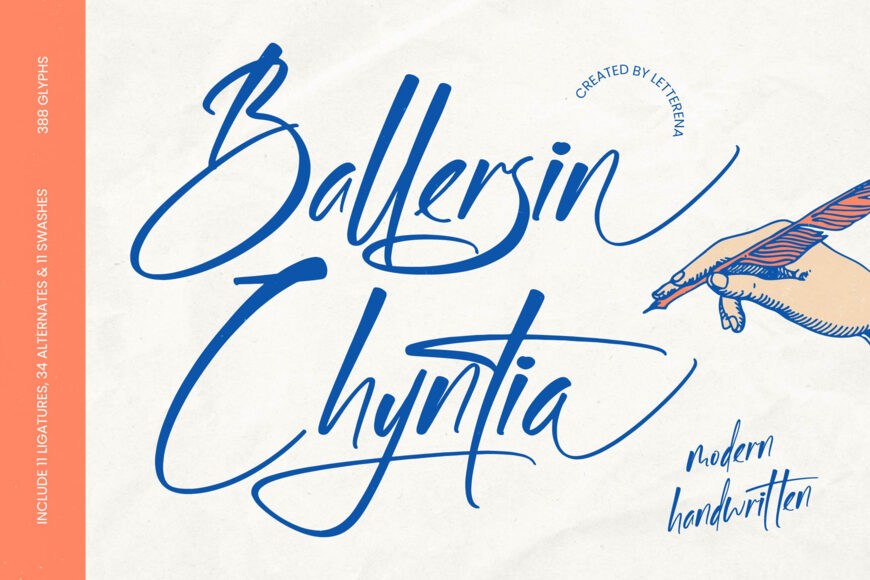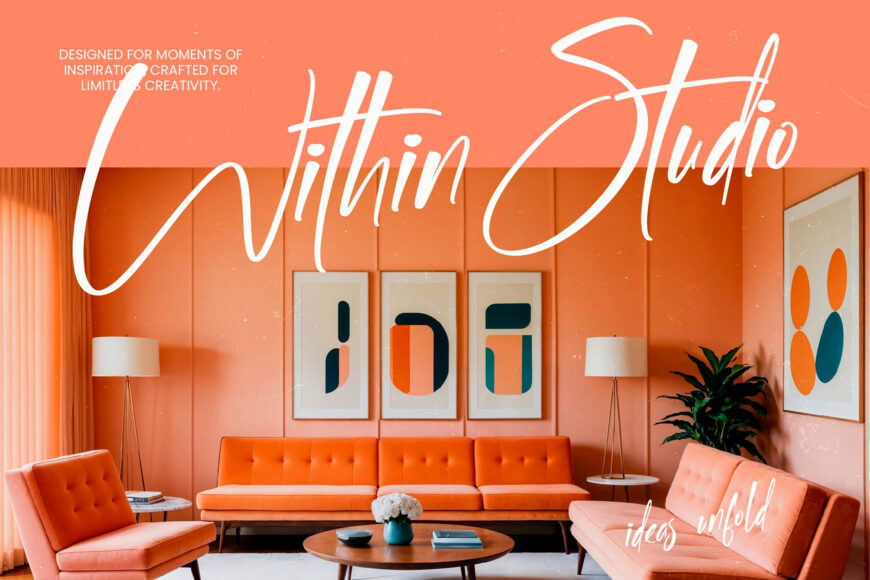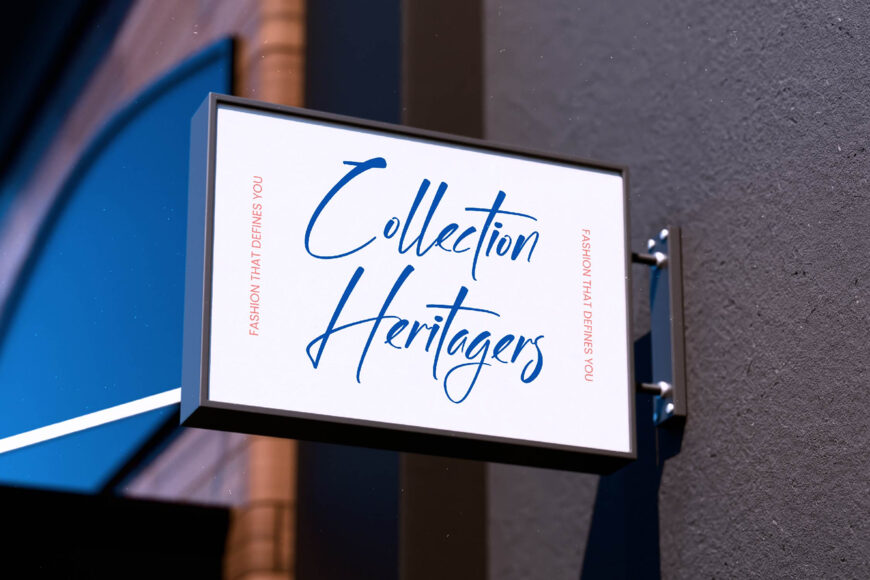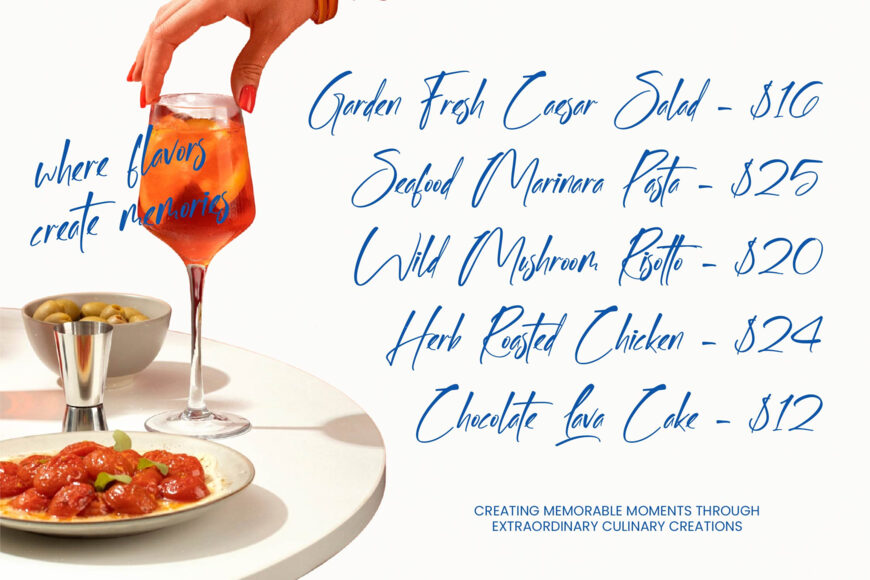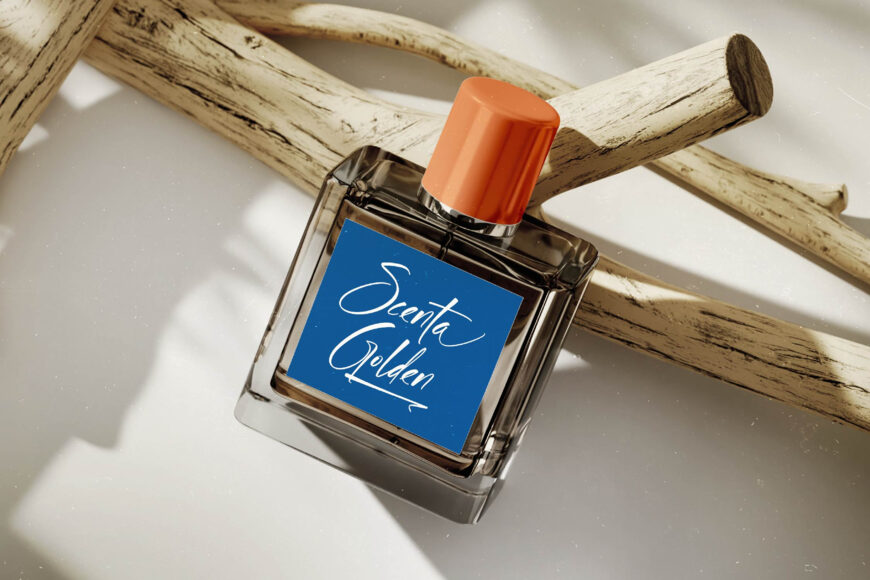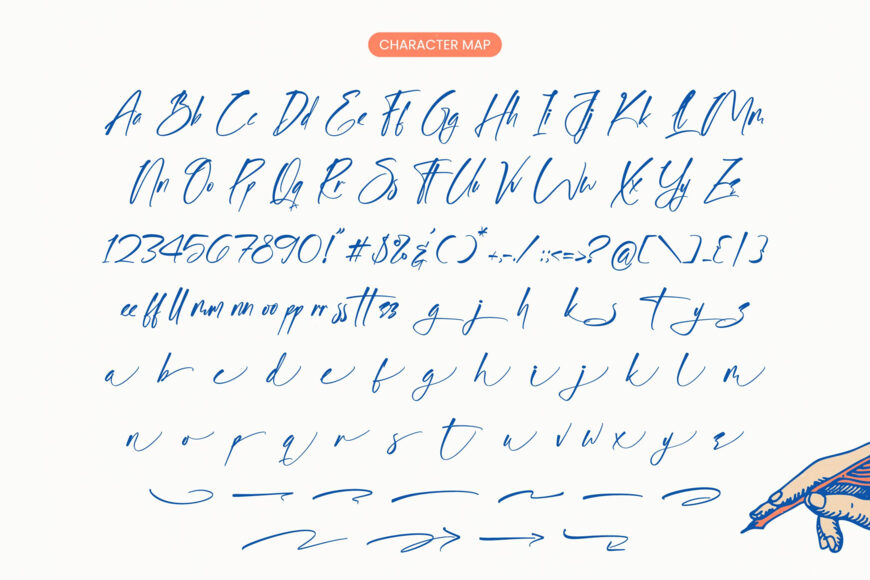
Ballersin Chyntia Font
Elevate your design with a sophisticated script font that combines modern style with classic charm. Ballersin Chyntia offers a refined, handwritten look with expressive strokes and organic flow.
With 388 glyphs, including ligatures and swashes, it provides creative freedom to craft unique typography. Its natural rhythm and varied line weights create a dynamic texture, while its multilingual support makes it perfect for global brands seeking a consistent, stylish message.